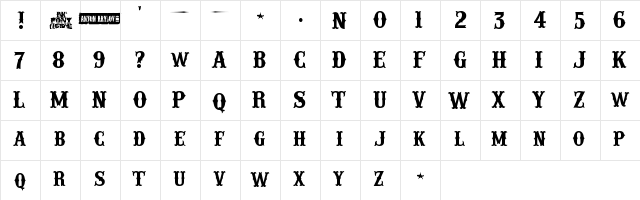
IFC RAILROAD Bold
Design Context for IFC RAILROAD Typeface
IFC RAILROAD takes a measured approach to typography — its balanced proportions and neutral character make it a reliable workhorse for both digital and print work. Its bold stroke weight gives it real presence on the page.